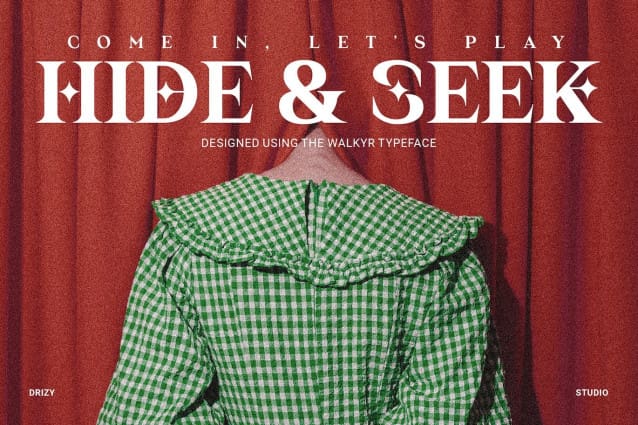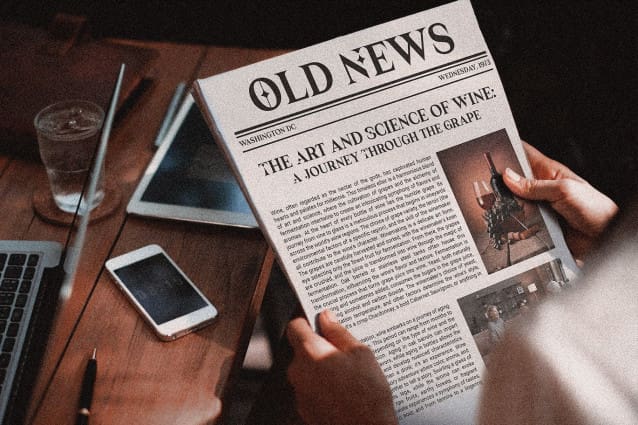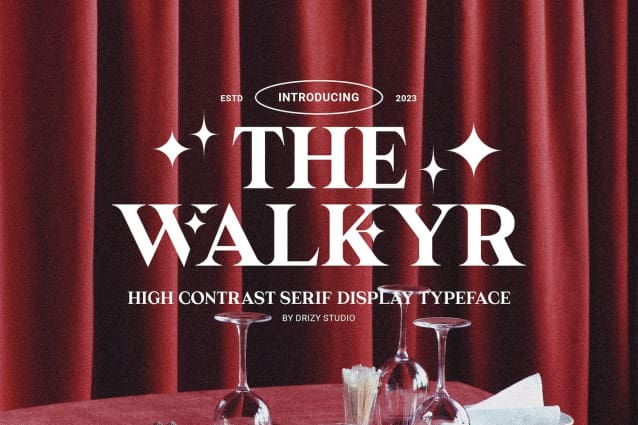
The Walkyr Font
The Walkyr Font – a font that’s not just a typeface but a visual experience. “TheWalkyr” is a high contrast serif font that combines the timeless elegance of traditional serif fonts with a bold and modern twist.
TheWalkyr features: Uppercase & Lowercase Punctuation & Numbers Multilingual Support